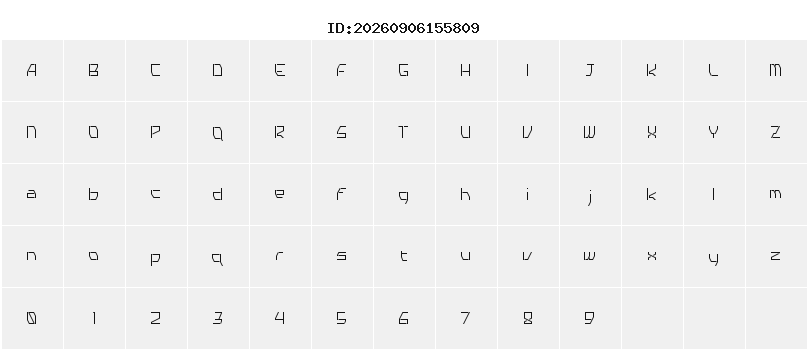
TYRO Preview
• Font Name: TYRO
• Font ID: FontStruct TYRO
• Full Font Name: TYRO Regular
• Designer: north
• Description: This font was created using FontStruct (http://fontstruct.fontshop.com)
About TYRO.ttf
TYRO.ttf is a modern, elegant sans-serif font designed for ultimate readability and visual harmony. Perfect for branding, headlines, web design, and print materials.